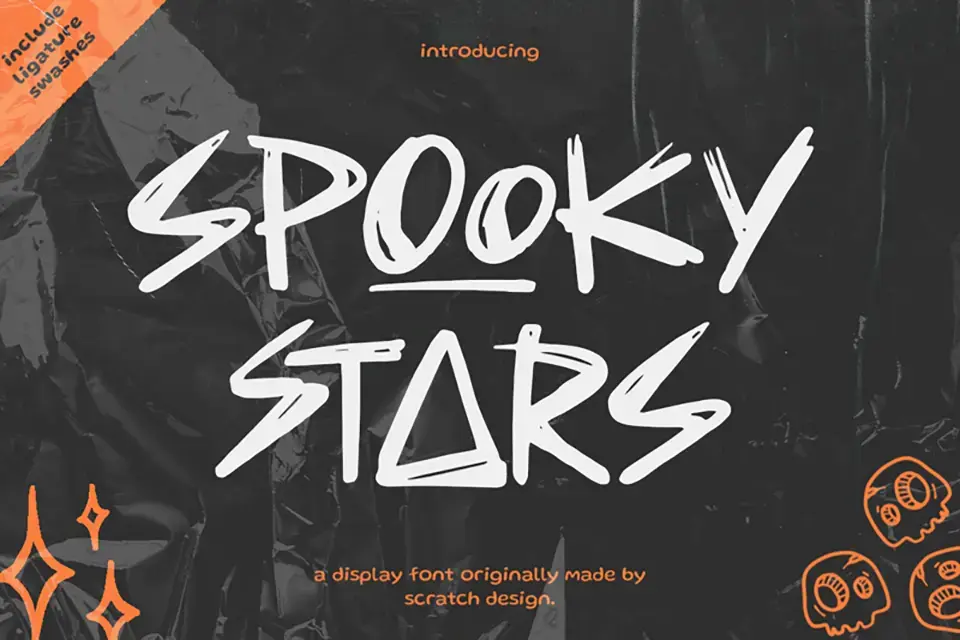
Spooky Stars Font
Spooky Stars is a charming display script font featuring natural, rough handwriting strokes with an inherently spooky, whimsical character. The font combines a playful yet slightly eerie aesthetic, making it ideal for Halloween-themed designs, horror movie posters, band event branding, festive party invitations, packaging, labels, merchandise, logos, and creative storefront displays. Its organic, handwritten feel delivers a delightful scare that appeals to designers seeking approachable yet atmospheric typography for seasonal and themed projects.